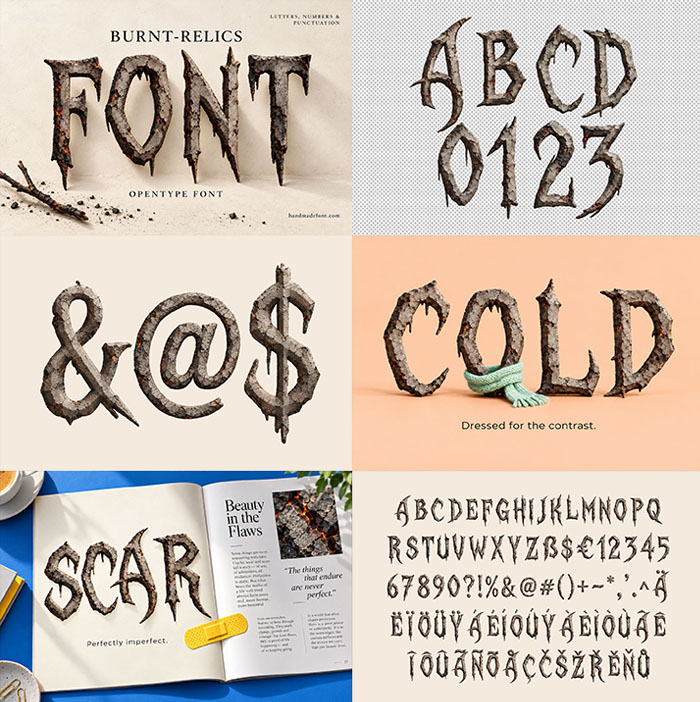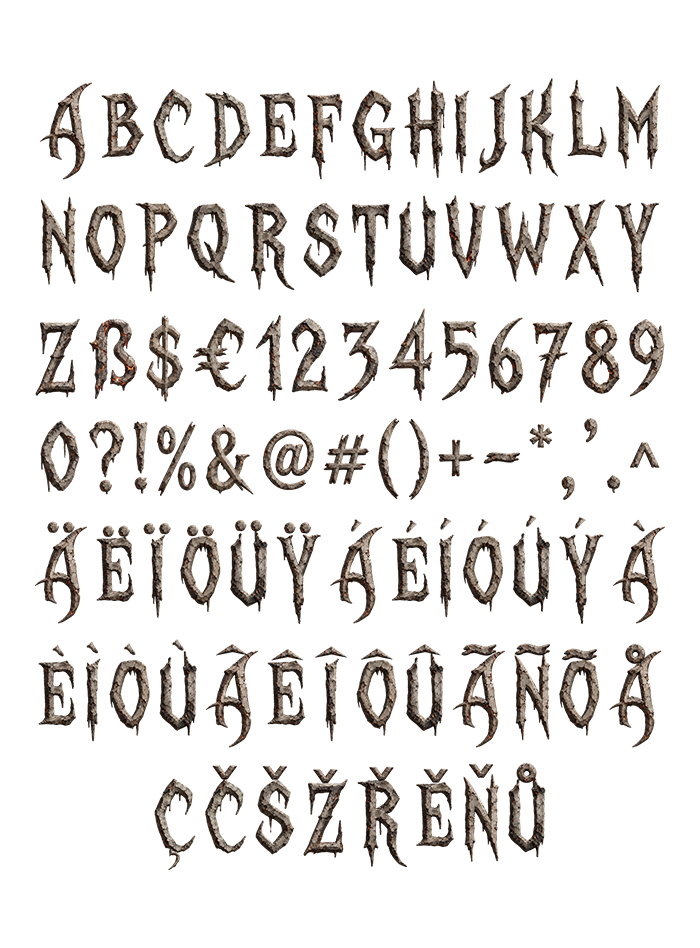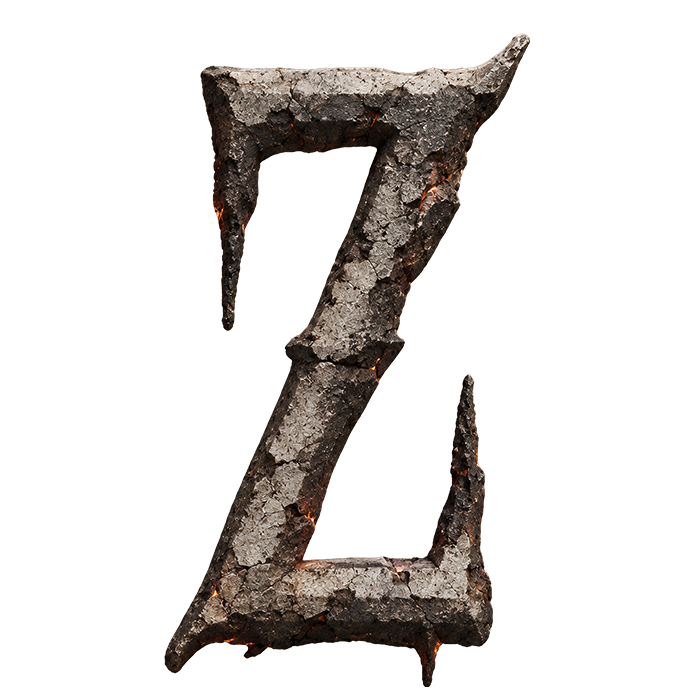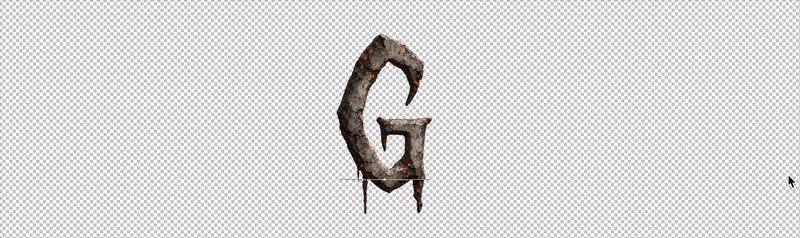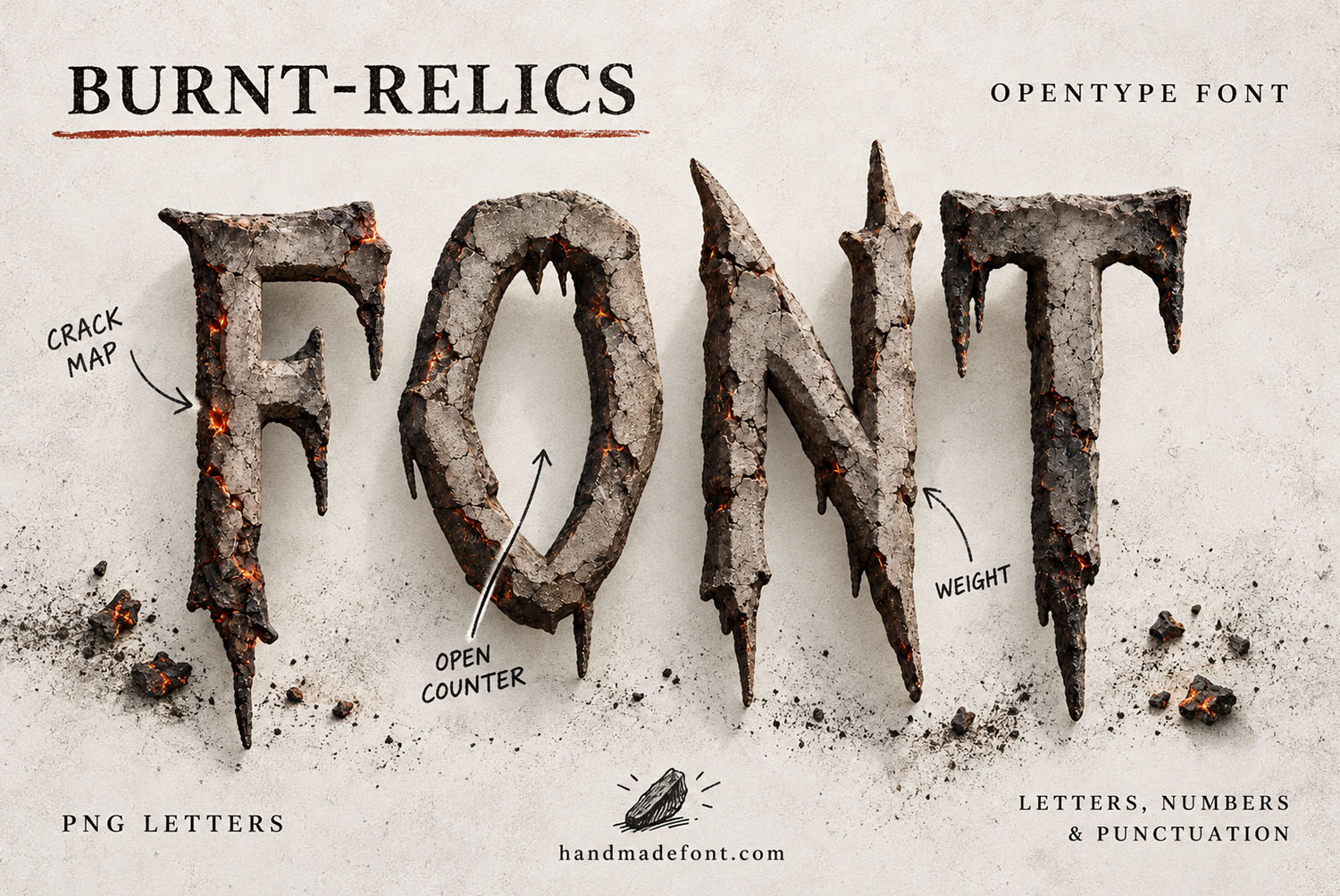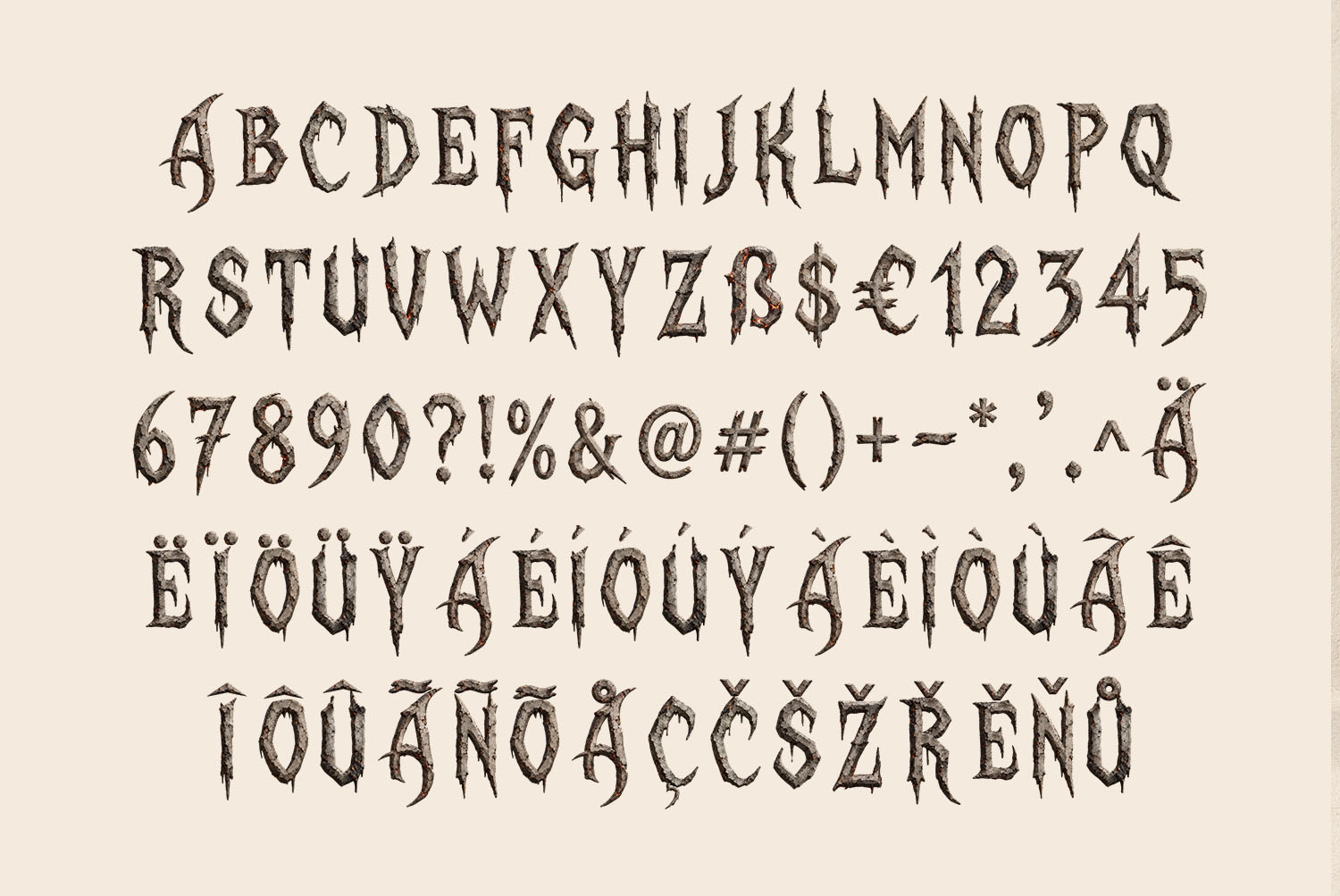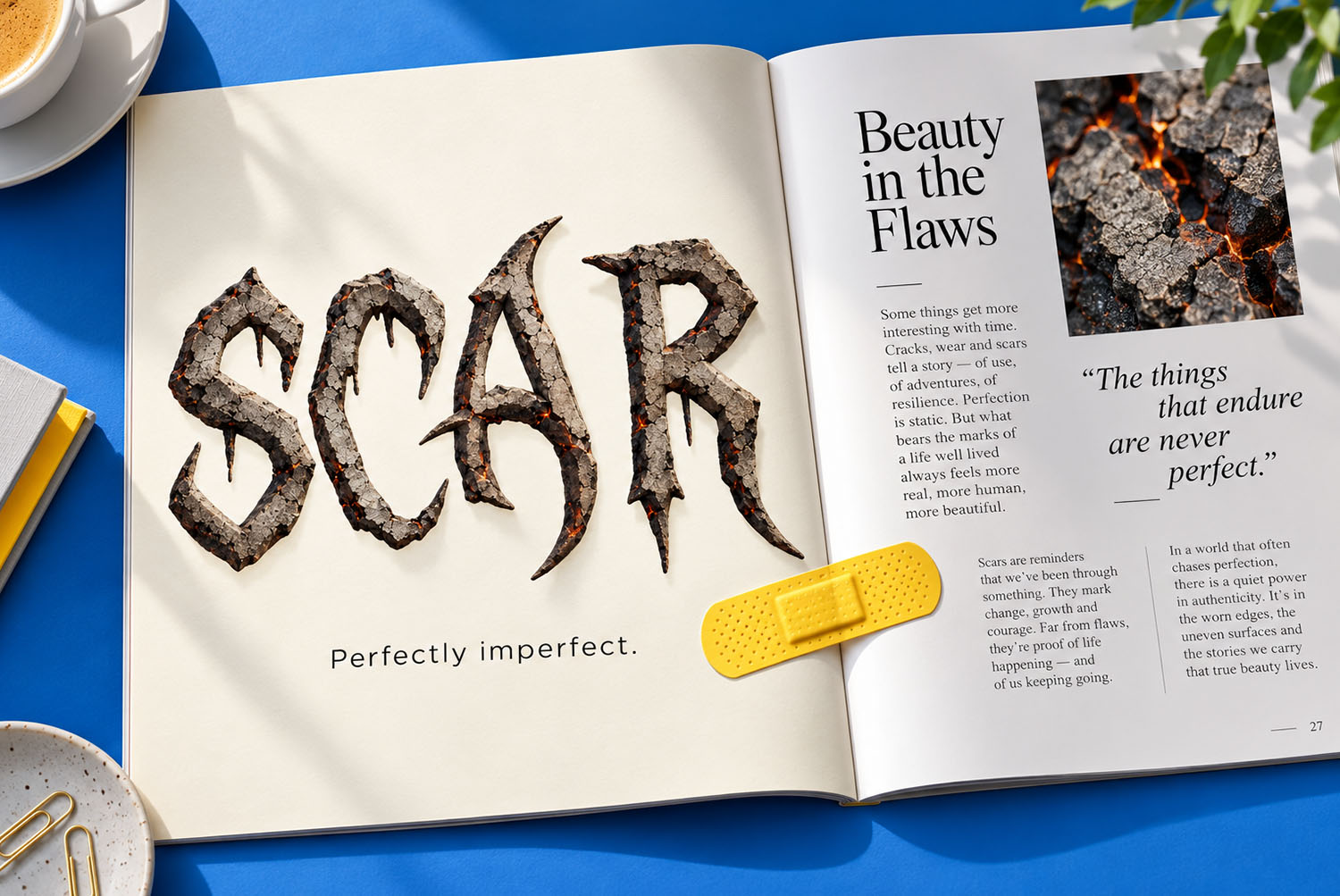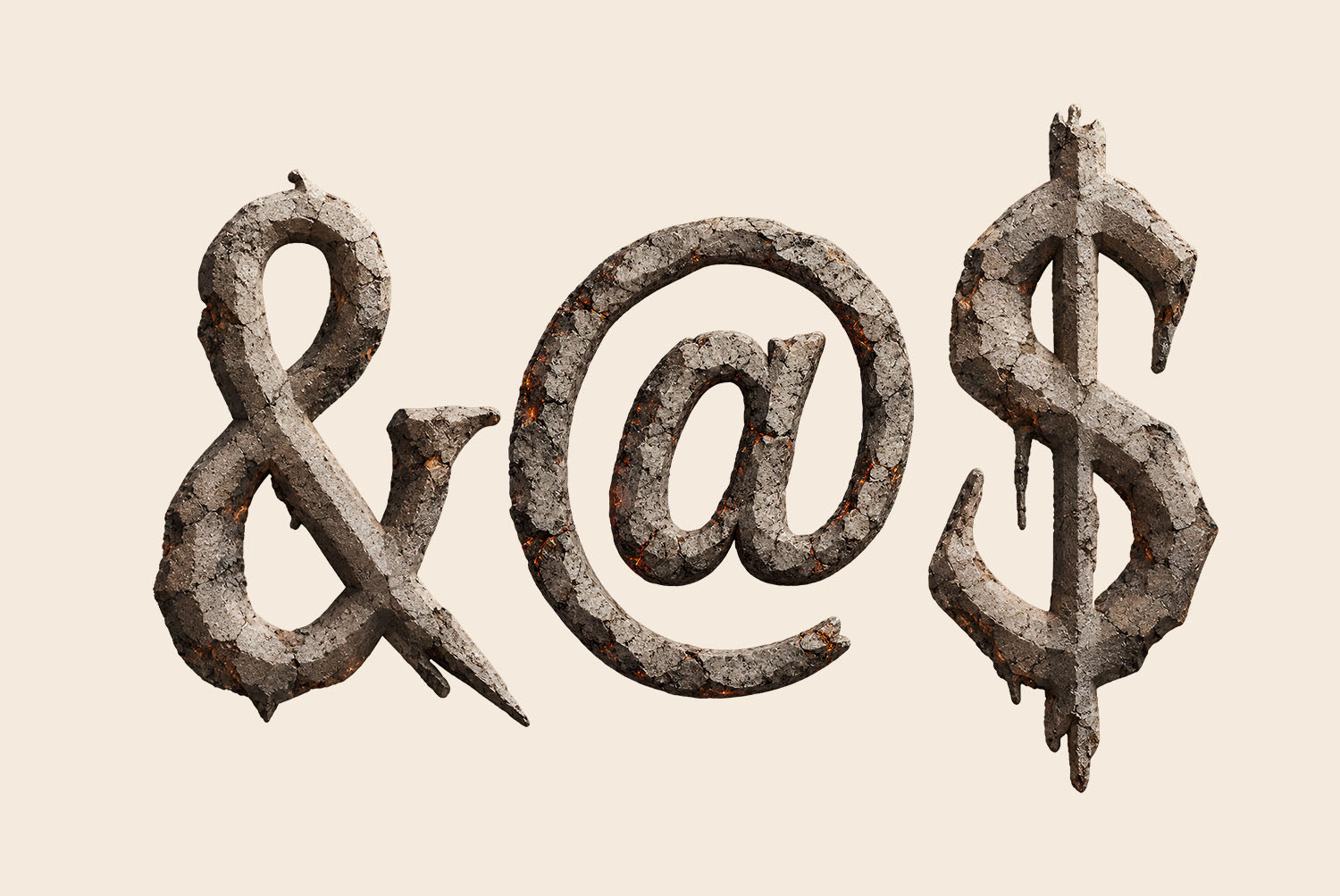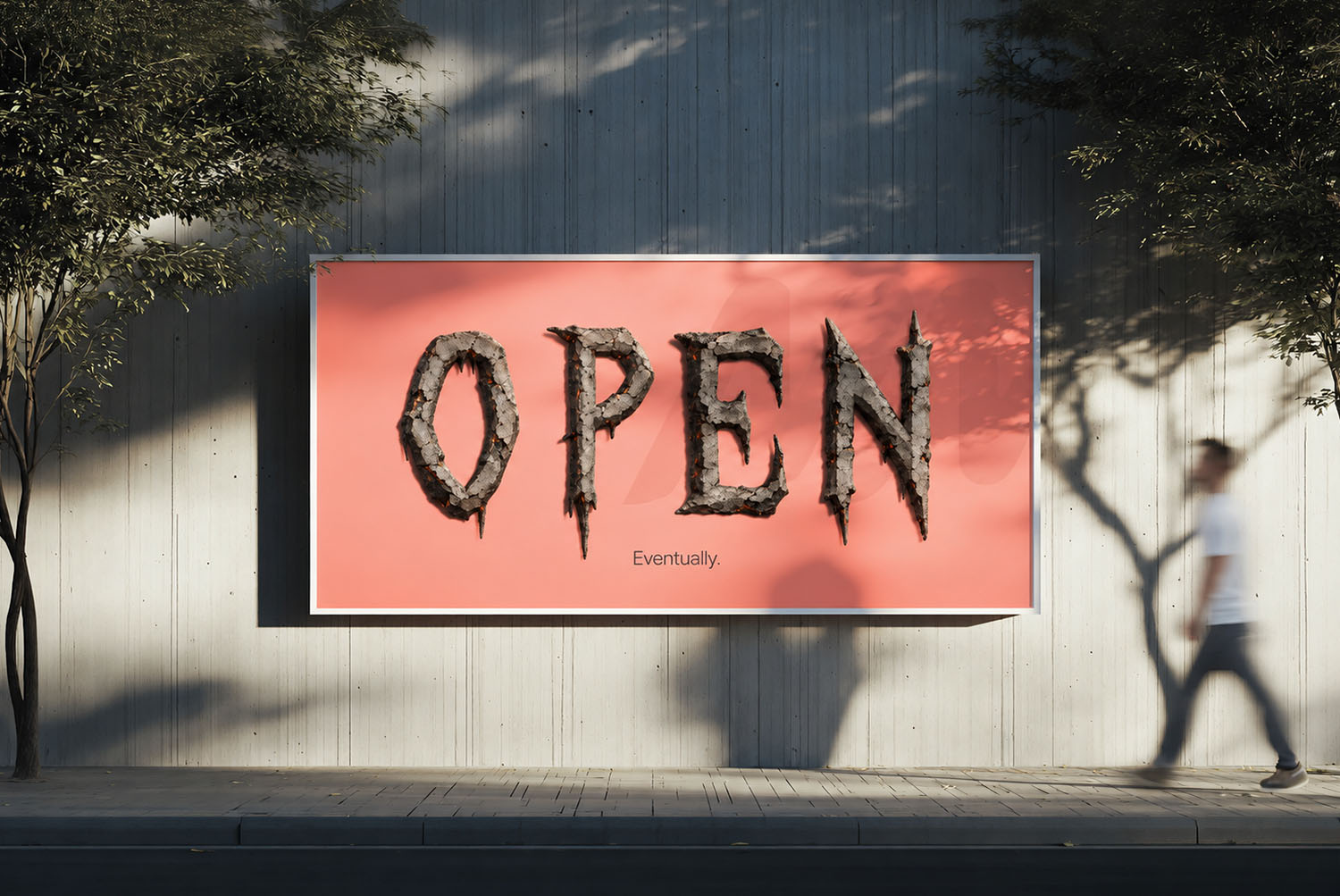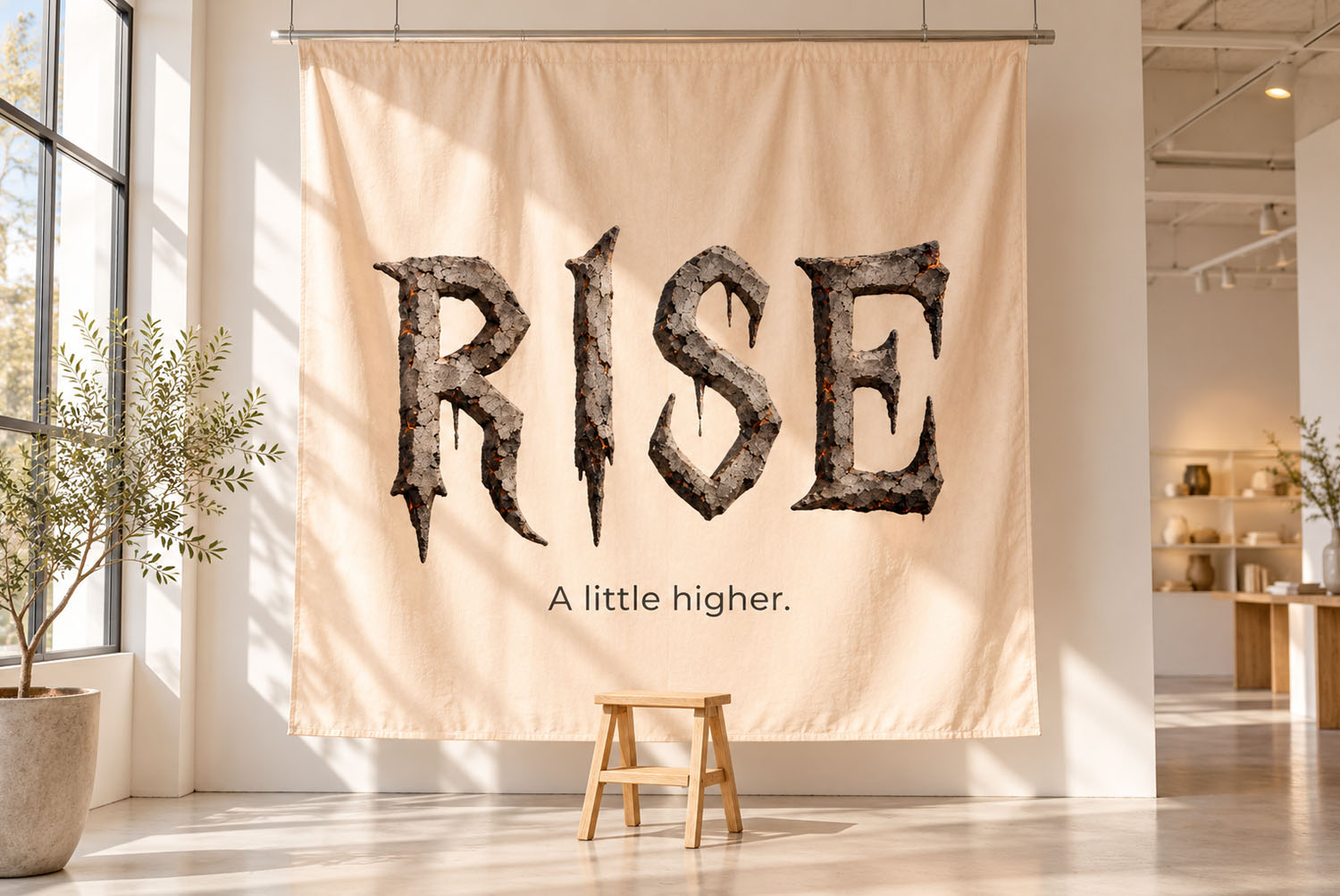
Burnt Relics Font. Ash-Crusted Gothic Letters With Buried Embers
Burnt Relics Font is a gothic alphabet that looks pulled straight from a fire. Grey ash crust cracks across every letter, embers still glow in the deepest seams, and sharp drips hang below the baseline. Type it as an OTF font or place the PNG letters by hand for posters, labels, book covers and dark, dramatic headlines.
Burnt Relics Font, Pulled Out of the Ashes
Picture a gothic alphabet that sat through a house fire and then walked out again. That, in short, is the Burnt Relics Font. Each letter also wears a crust of grey ash, cracked into small plates like dried mud. Deep inside those cracks, a few embers still glow orange, so the surface feels warm underneath. The shapes themselves stay sharp, though. Tall narrow stems end in ragged points, while drips of hardened crust hang below the baseline. Because the edges crumble instead of breaking cleanly, no two letters look quite alike.
Texture That Survived the Heat
Seen up close, the crust also has real weight. Flakes lift at the corners, while fine soot settles into every groove. Meanwhile, the rusty glow lives only in the deepest fissures, so it reads as a hint rather than a flame. For this reason, pale cream or bone backgrounds show the grey at its best. Still, a black page works too, since the embers catch the eye there first. Even a strong red wall suits it, as our AGAIN mockup shows.
Animated preview of the Burnt Relics Font showing charred gothic letters
Where the Burnt Relics Font Earns Its Keep
Metal gig posters and horror covers are the obvious home, of course. Yet the same letters also suit a candle label, a whisky bottle or a book about lost cities. Short words land hardest, because every glyph already carries plenty of detail. So think RELIC across a black tee, or HOT above a smoking match. In addition, the set covers accented letters, figures and symbols such as &, @ and €. So European headlines work in the Burnt Relics Font as well.
Keep It Short, Let It Smoulder
Burnt Relics Font cover with notes pointing at the crack map, open counter and weight
Burnt Relics Font alphabet, numbers and accented capitals on a cream background
SCAR in the Burnt Relics Font across a magazine spread with a yellow plaster
Ampersand, at sign and dollar sign from the Burnt Relics Font in cracked grey ash
OPEN in the Burnt Relics Font on a coral street billboard with a passer-by
Burnt Relics Font in action
RISE in the Burnt Relics Font on a hanging cloth banner in a bright studio
CARRY printed in the Burnt Relics Font on a kraft paper shopping bag
Transparent PNG letters ABCD and figures 0123 from the Burnt Relics Font
OOPS in the Burnt Relics Font on a lilac framed poster leaning against a wall
RELIC in the Burnt Relics Font printed on a black t-shirt
WORN in the Burnt Relics Font on the back of a white t-shirt
AGAIN in the Burnt Relics Font on a red wall beside a small restart button
COLD in the Burnt Relics Font with a mint knitted scarf wrapped around the O
HOT in the Burnt Relics Font on dark ground beside a smoking match
LOST in the Burnt Relics Font standing on a white gallery plinth
FONT spelled in the Burnt Relics Font on a pale wall with charred twigs and soot